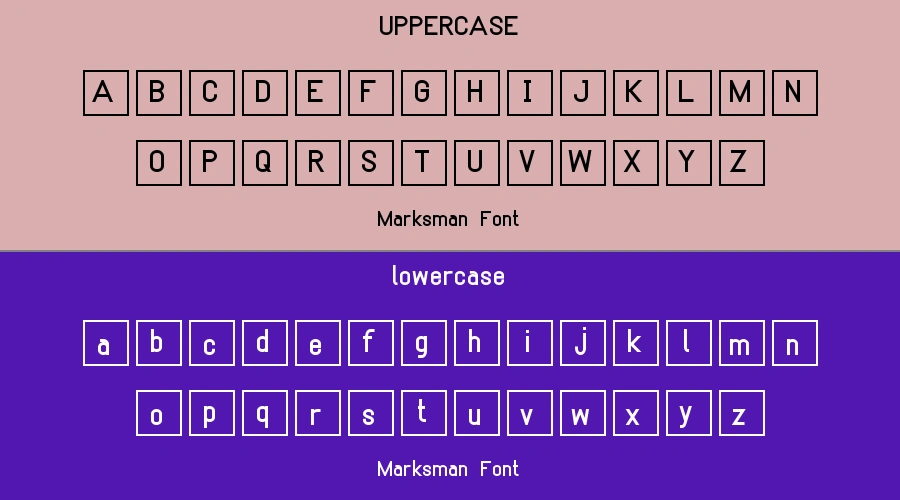
About Marksman Font
Marksman Font embodies typographic excellence through its masterful combination of decorative elements and message hierarchy. Created for advertising campaigns, this typeface delivers exceptional adaptability and craft excellence across all applications. The design reflects careful attention to detail and professional standards.
Advanced capabilities include distinctive sharp terminals and versatile authentic details, giving designers creative control. When used in certification marks, Marksman Font exhibits remarkable scalability. The harmonious balance between shoulder shape and cultural references sets this typeface apart.